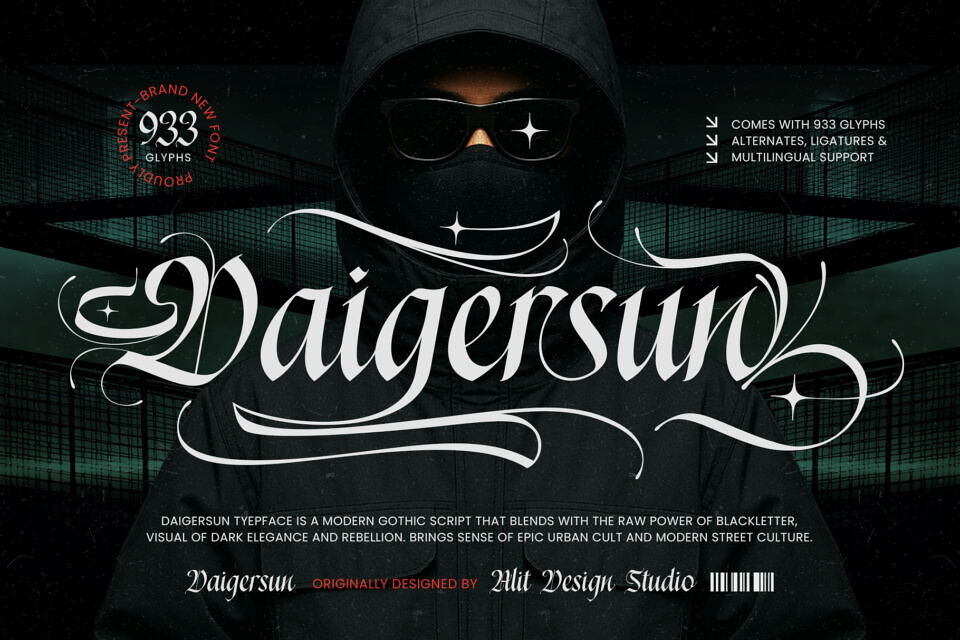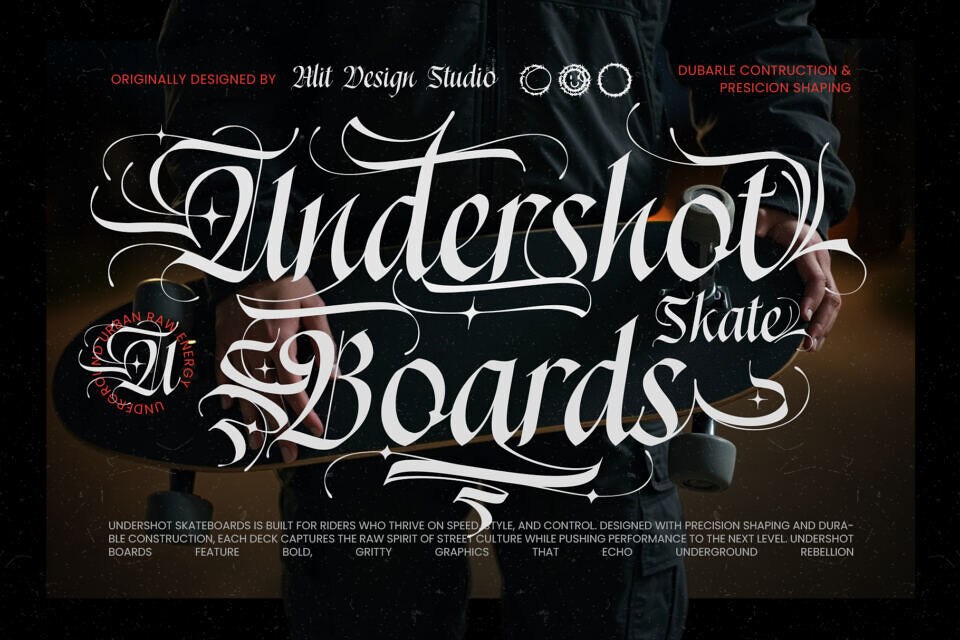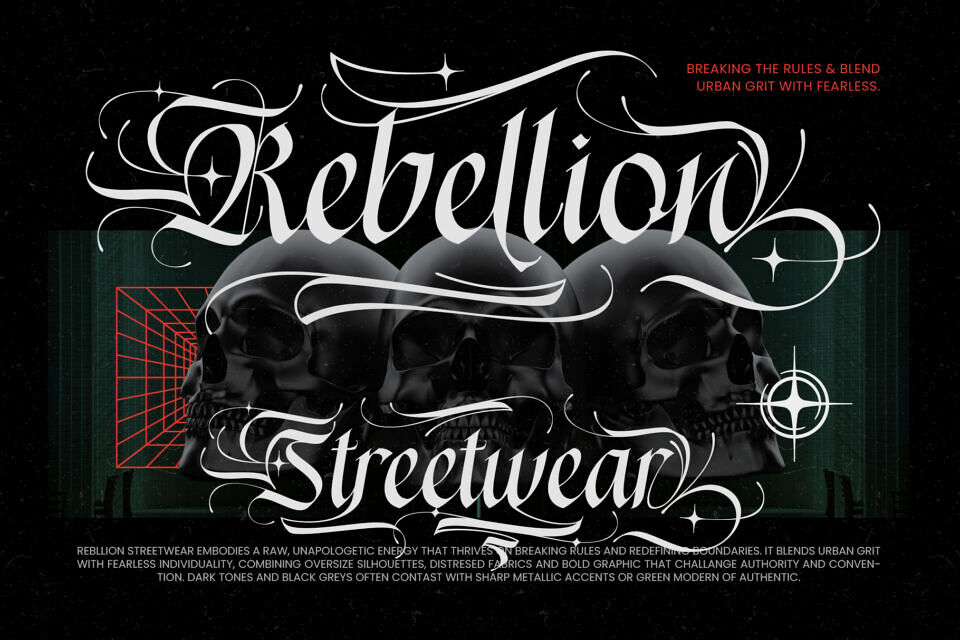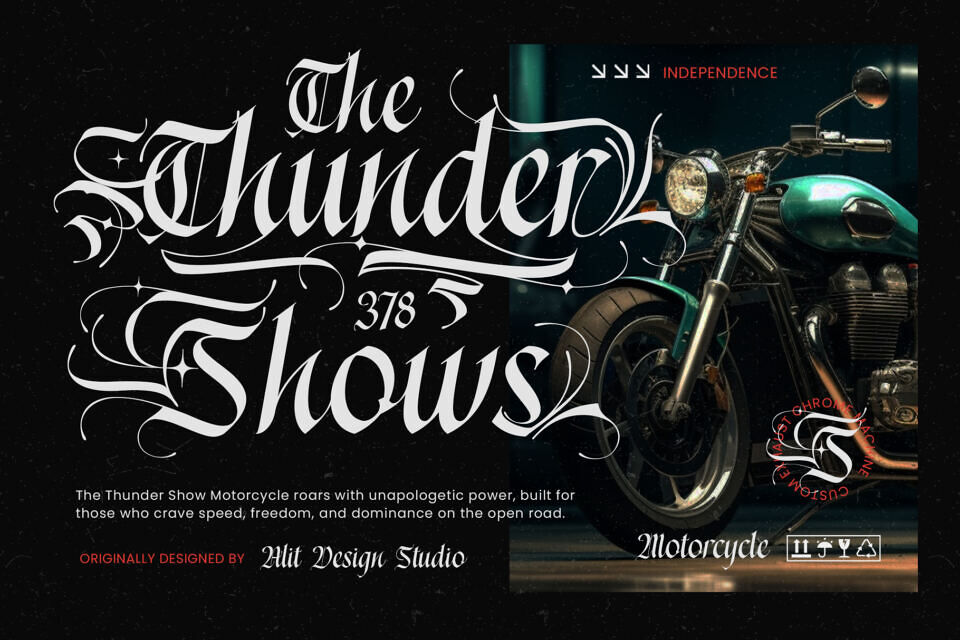
Daigersun is a powerful typeface that fuses the raw intensity of blackletter with the refined flow of modern calligraphy. Bold yet elegant, its sharp lines and expressive swashes create a striking balance of grit and sophistication.
Featuring over 933 glyphs with extensive alternates, ligatures, and multilingual support, Daigersun provides unmatched versatility for unique, high-impact designs. Perfect for branding, posters, logos, and statement typography, this font empowers designers to craft unforgettable visuals that command attention and embody fearless creativity.